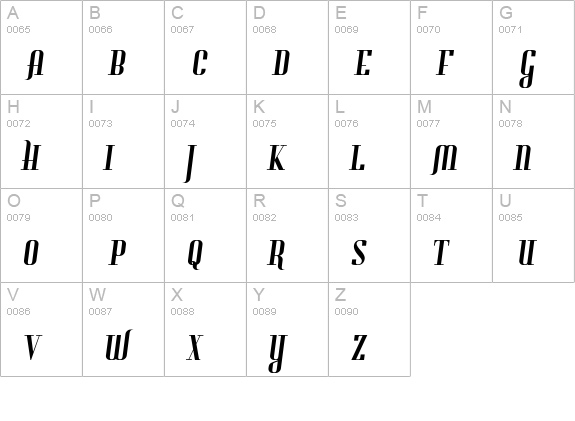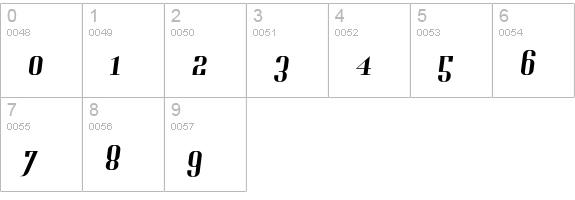
Gladifilthefte Font Details
Introducing Gladifilthefte, a unique and captivating font that will elevate your designs to new heights. With its elegant and sophisticated style, this font exudes a sense of refinement and modernity that is sure to impress. Gladifilthefte is expertly crafted to capture attention and make a lasting impression. Its sleek and fluid letterforms dance across the page, effortlessly blending classic charm with contemporary flair. Whether used for headlines, logos, or body text, this font is versatile and adaptable, perfectly suited for a wide range of design projects. But perhaps the most exciting aspect of Gladifilthefte is that it is available for free! Yes, you read that right – this stunning font can be yours without spending a dime. Simply head over to FontsMarket.com, a trusted source for high-quality fonts, and download Gladifilthefte with ease. By offering Gladifilthefte as a free font, the creators aim to foster creativity and accessibility in the design community. They believe that everyone should have the opportunity to enhance their projects with exquisite typography, regardless of budget constraints. With Gladifilthefte, you can now add a touch of elegance and sophistication to your designs without breaking the bank. So why wait? Don't miss out on this incredible opportunity to elevate your design game. Download Gladifilthefte for free at FontsMarket.com and let your creativity soar like never before.